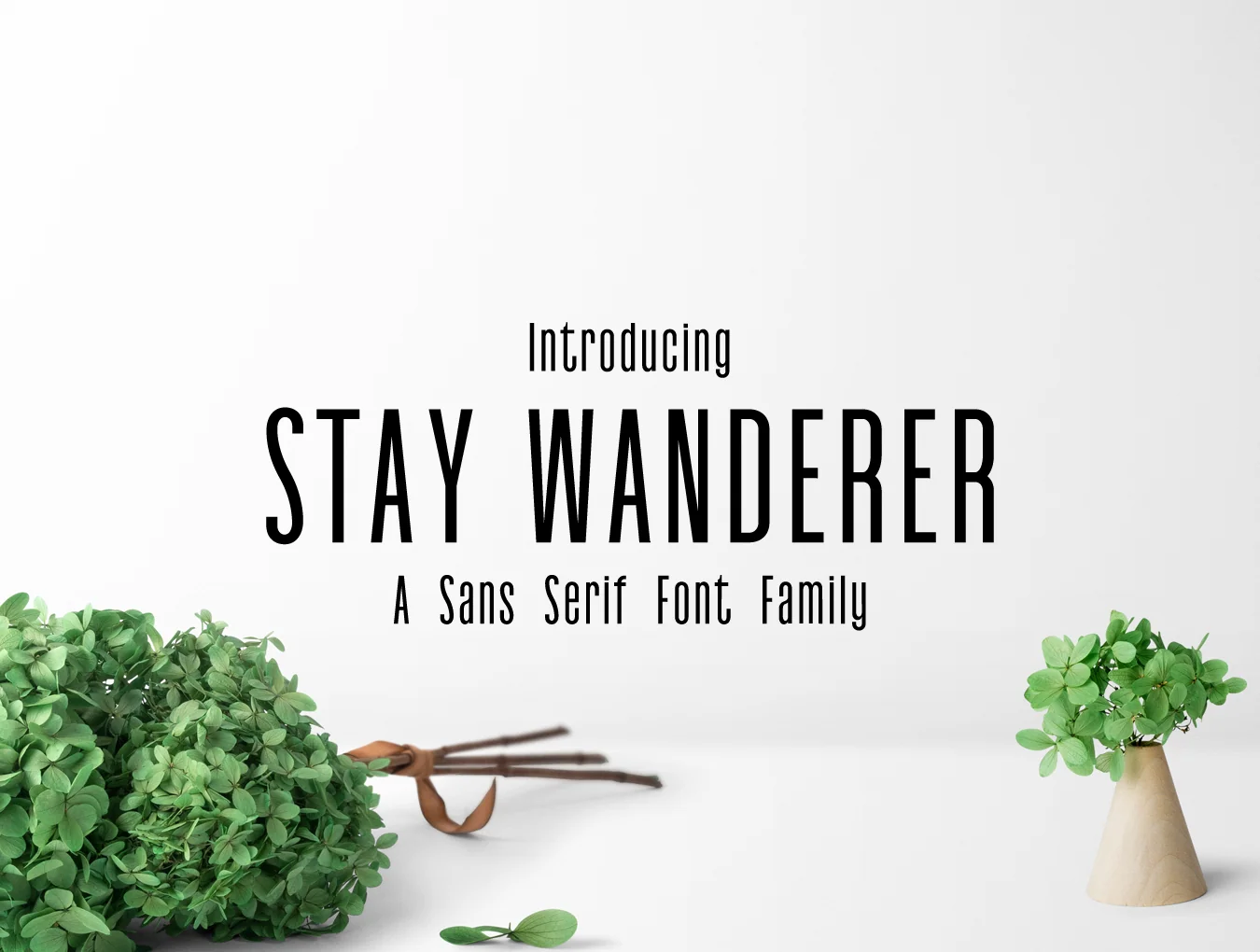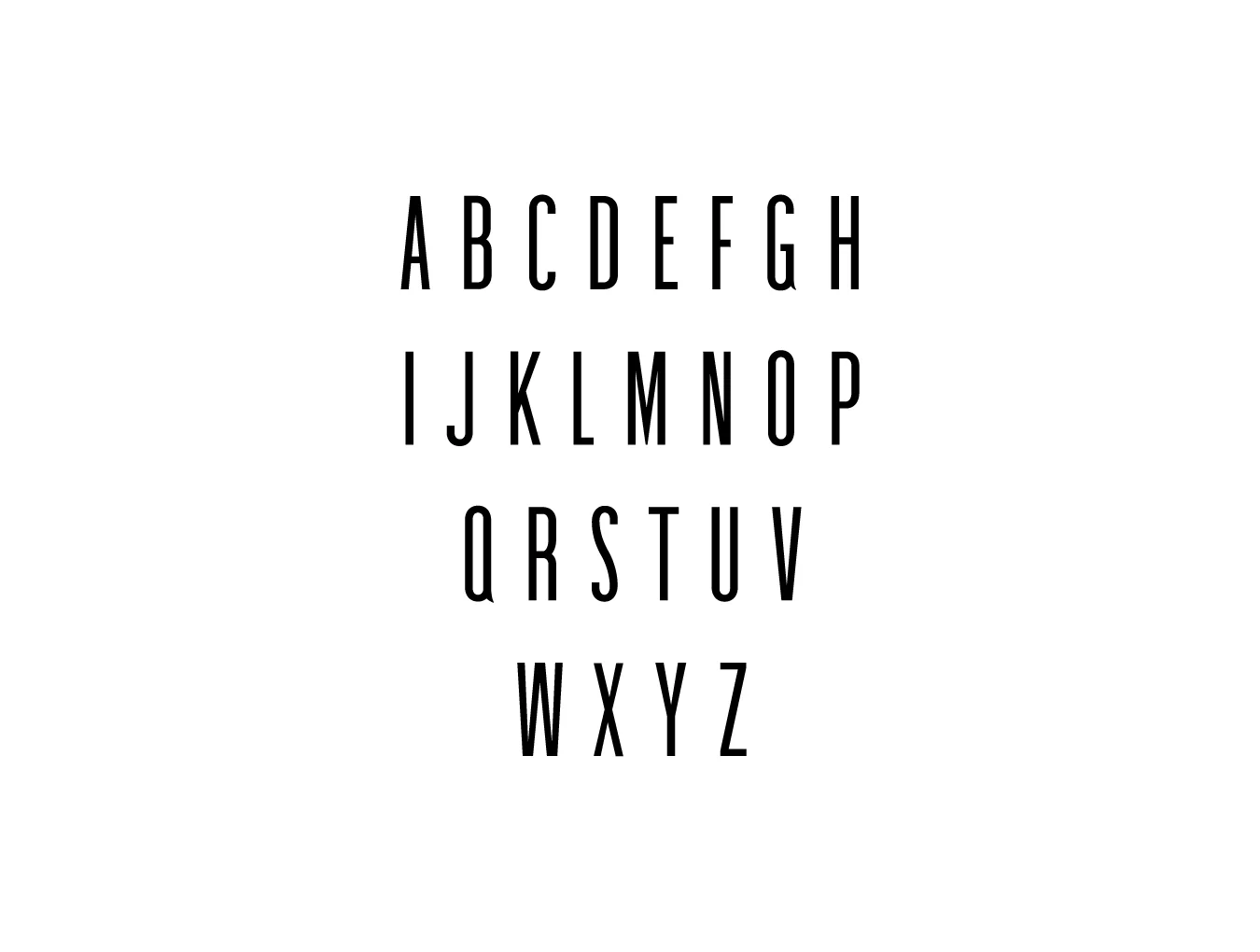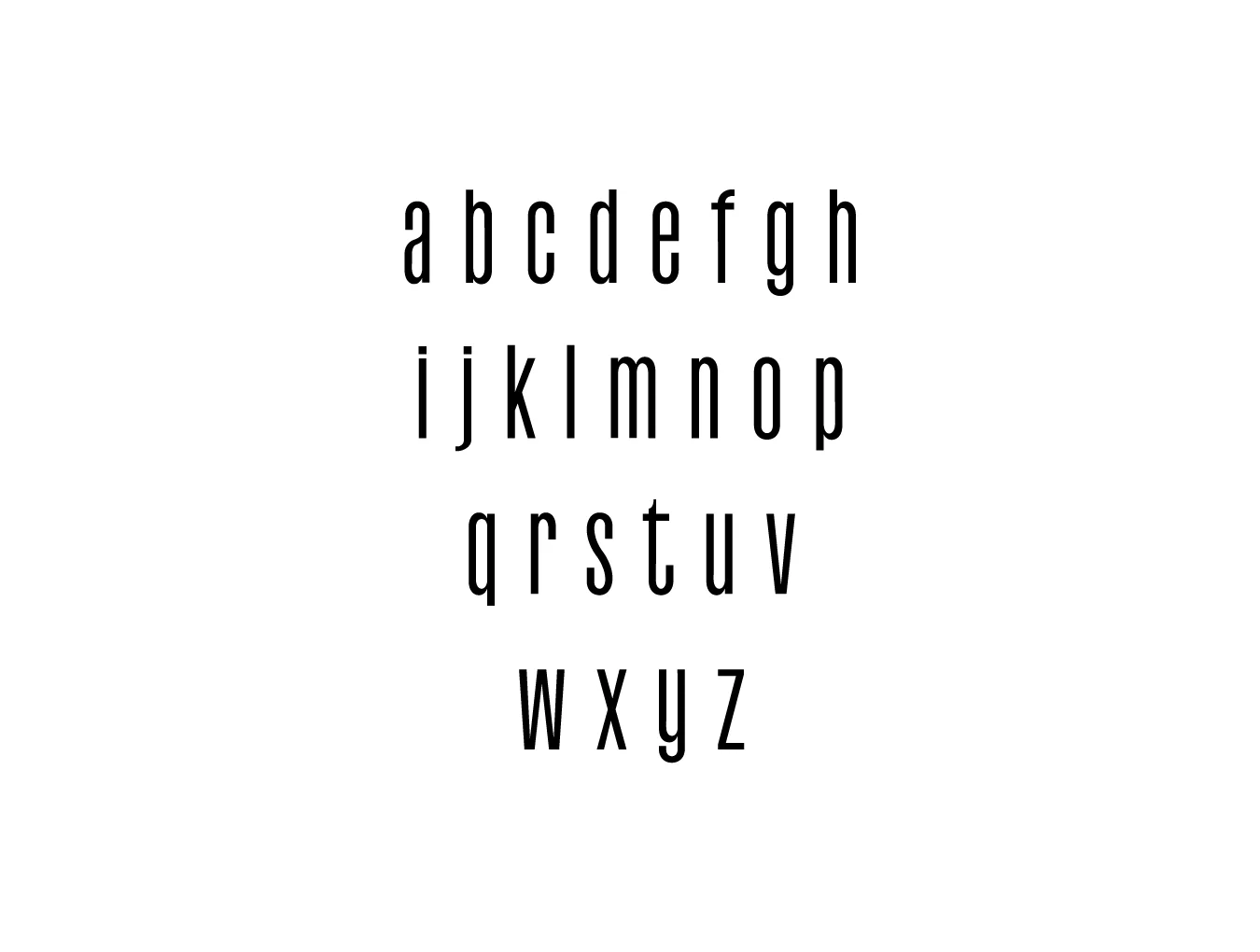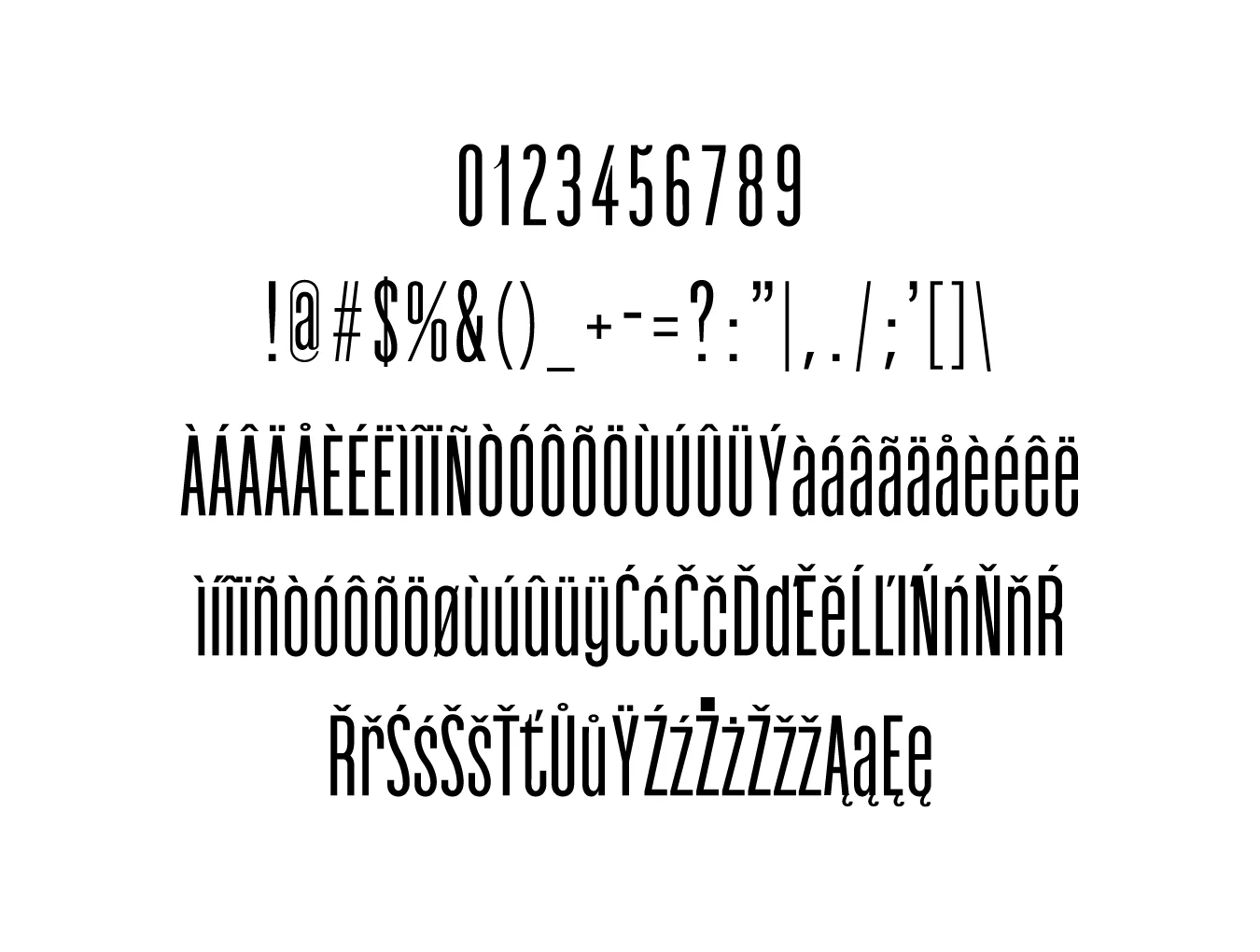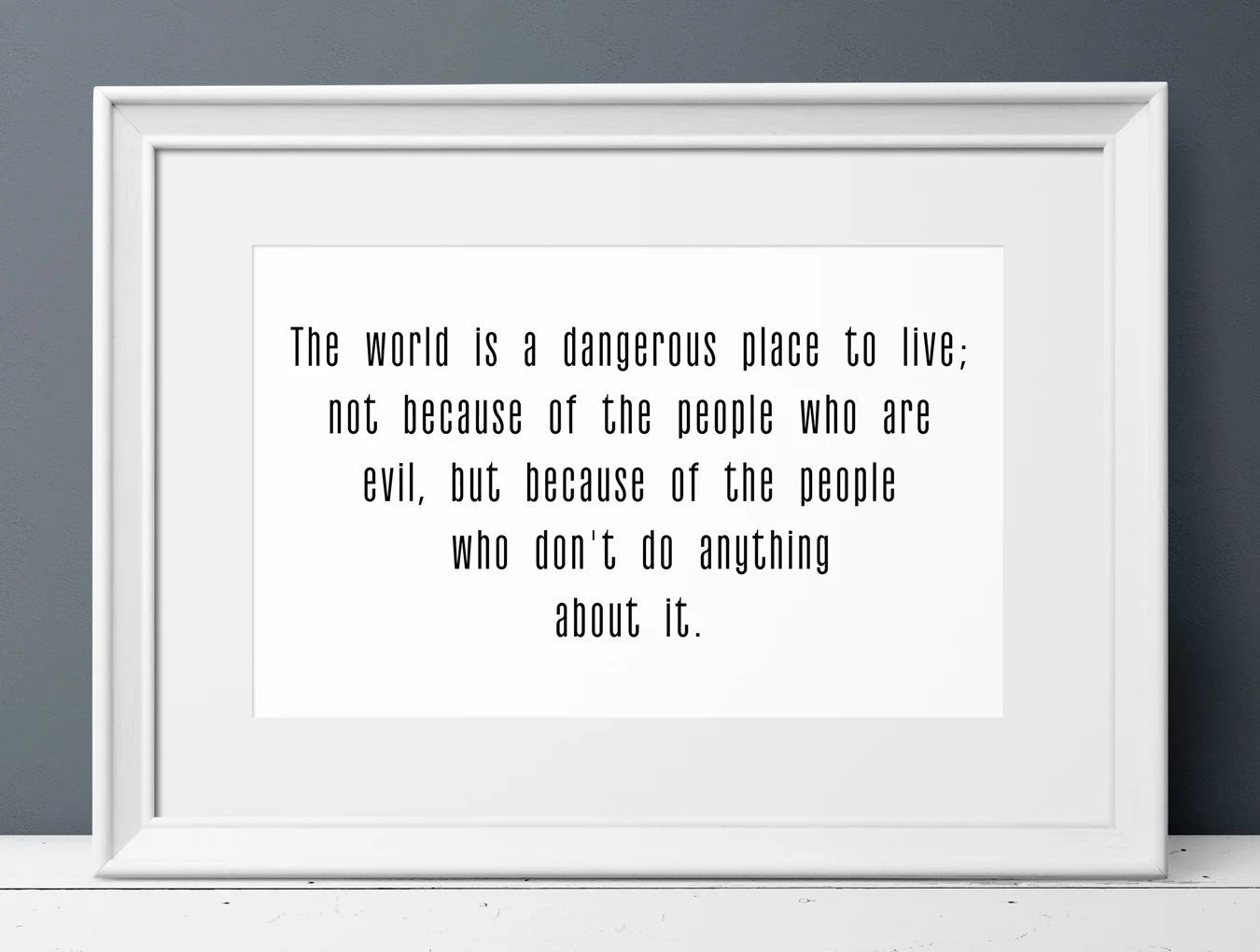
Stay Wanderer
A 3-style sans serif font family bundle
Sans-serif type style
Includes 255 glyphs
Three typeface variations
Stay Wanderer 3 Font Family Pack offers a distinctive contemporary serif style, ideal for elegant logos, headlines, website designs, and brand identities. Use it in uppercase with generous letter spacing for a refined feel, or mix capitals and lowercase for a classic, enduring look.